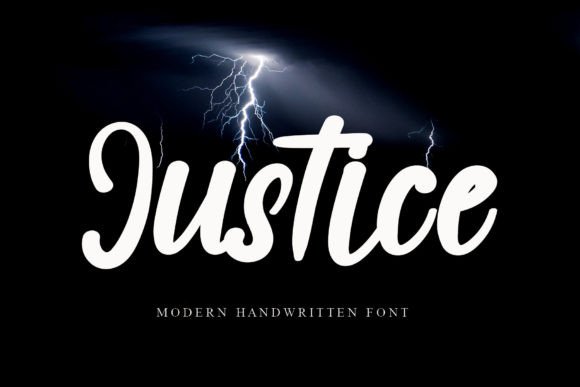
Introducing Justice Font, the perfect script font for all your Christmas card needs! Created by PiPi Creative, this font is a work of art that will captivate and inspire you. With its elegant touch and timeless style, Justice will add a touch of sophistication to your designs.
When it comes to Christmas cards, you want to capture the essence of the holiday season. Justice Font is the ideal choice to convey warmth, love, and joy. Its neat and beautiful handwritten design exudes a sense of authenticity, making it the perfect companion for heartfelt messages.
What sets Justice Font apart is its incredible versatility. Whether you're designing a festive greeting card, a holiday-themed invitation, or even a personalized gift tag, this font will elevate your creations to new heights. Its captivating style will make your designs stand out and leave a lasting impression on all who receive them.
Imagine the joy on your loved ones' faces as they receive a Christmas card adorned with Justice Font. It will evoke emotions of nostalgia and create a sense of connection. This font brings people together, reminding us of the importance of spreading love and cheer during this special time of year.
Not only does Justice Font excel in aesthetics, but it also offers a seamless user experience. Its legibility ensures that your message is conveyed with clarity, allowing your recipients to fully appreciate the heartfelt words you've written. This font is designed to make your life easier, allowing you to focus on what truly matters: spreading holiday cheer.
Don't settle for ordinary fonts when you can have Justice Font. Its captivating charm, combined with its keyword-rich appeal as one of the best fonts for Christmas cards, makes it a must-have for any designer or individual looking to make a statement this holiday season.